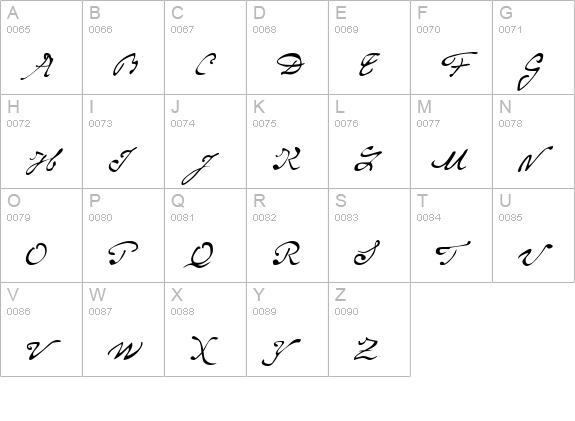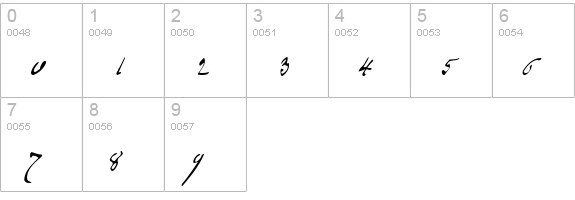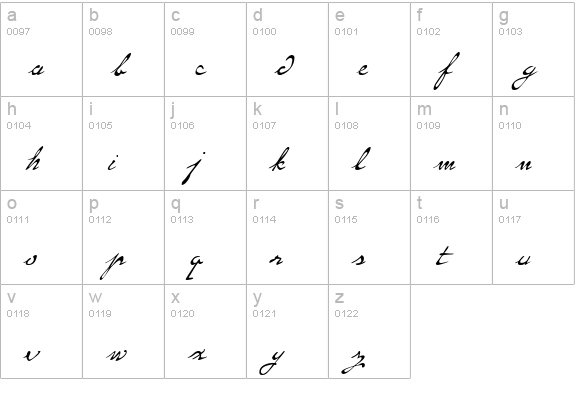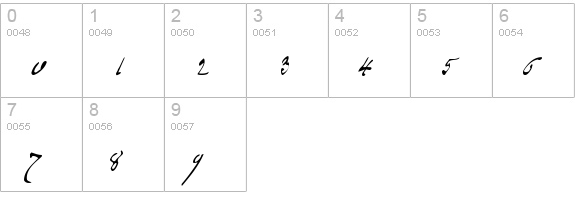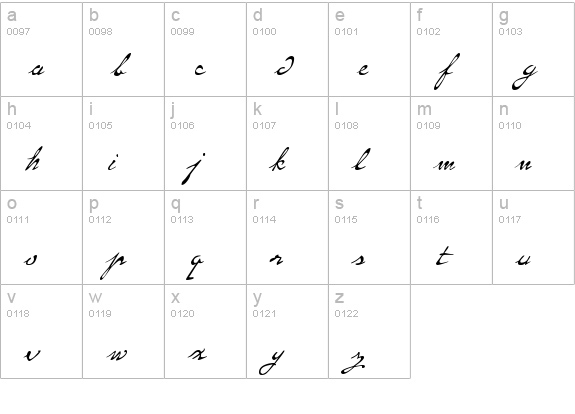
P22Monet Font Details
P22Monet font is a breathtaking tribute to the iconic French Impressionist painter, Claude Monet. This exquisite typeface captures the essence of Monet's brushstrokes and evokes the same sense of tranquility and beauty as his masterpieces. With its graceful curves and delicate lines, P22Monet transports you to the enchanting world of Impressionism. What makes P22Monet font even more exceptional is that it is free. Yes, you read that right - this remarkable font is freely available to download at FontsMarket.com. Whether you are an artist, designer, or simply an admirer of Monet's work, P22Monet font allows you to infuse your projects with the same artistic flair and elegance. Each letter in P22Monet font is meticulously crafted to reflect the fluidity and vibrancy of Monet's paintings. From the soft, dreamy strokes of the lowercase letters to the bold and expressive capitals, this font captures the essence of Monet's artistic genius. P22Monet font is a versatile typeface that can be used for a wide range of projects. From creating stunning logos and branding to designing captivating invitations and posters, this font adds a touch of sophistication and artistic flair to any design. The beauty of P22Monet font lies not only in its visual appeal but also in its ease of use. With its freely available download at FontsMarket.com, this font is accessible to all who seek to add a touch of Monet's magic to their work. So, why wait? Bring the spirit of Monet's artistry into your designs with P22Monet font. Download this captivating typeface today and let your creativity flow freely.